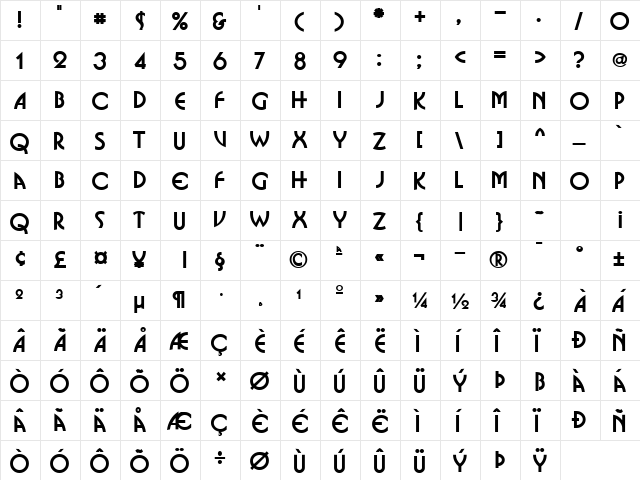
Busso-Extended Normal
Design Context for Busso-Extended Typeface
Busso-Extended takes a measured approach to typography — its balanced proportions and neutral character make it a reliable workhorse for both digital and print work.